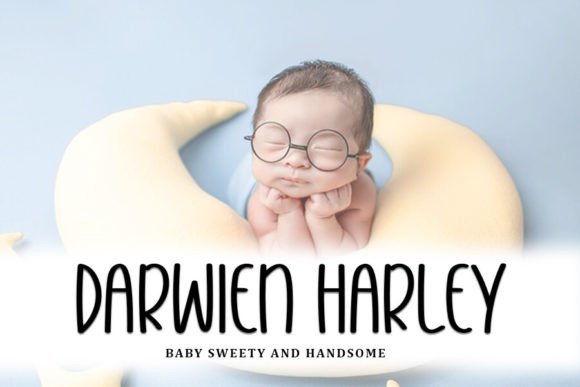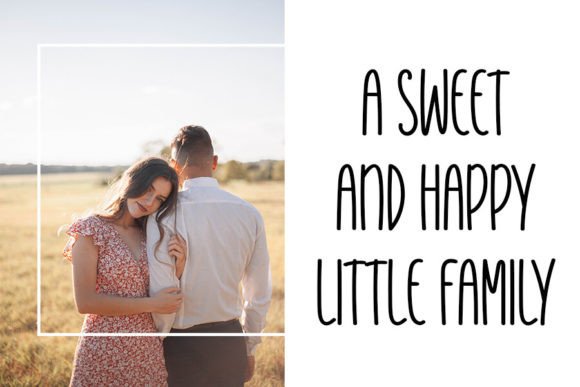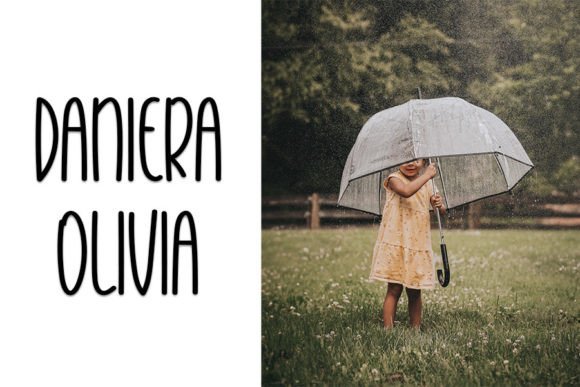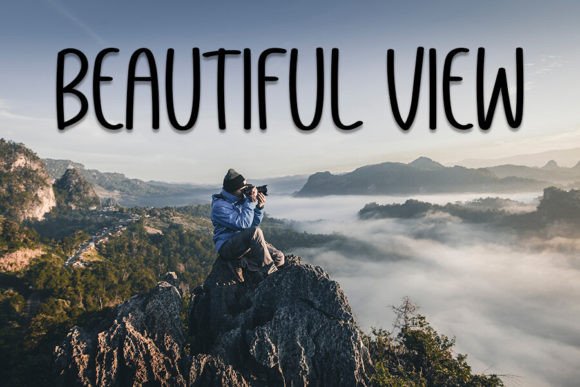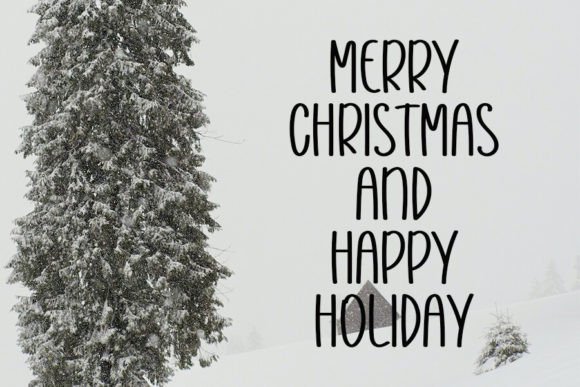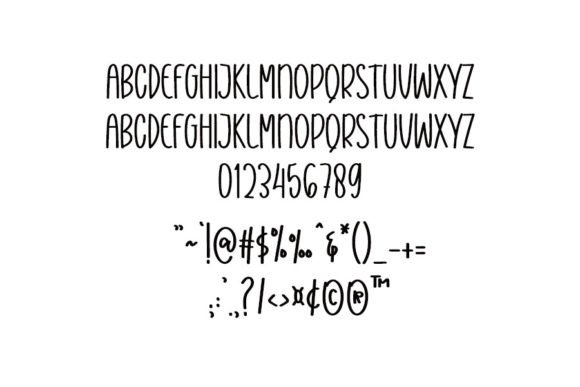
Introduction to Halloween Hounted Font
Halloween Hounted is a stylish handwritten font with a contemporary atmosphere and impeccable form, inspired by a timeless classic calligraphy.
Not too thin and not too thick, balanced and varied, this font was designed to enhance the beauty of your projects .
Key Features of Halloween Hounted Font
Why Choose Halloween Hounted Font?